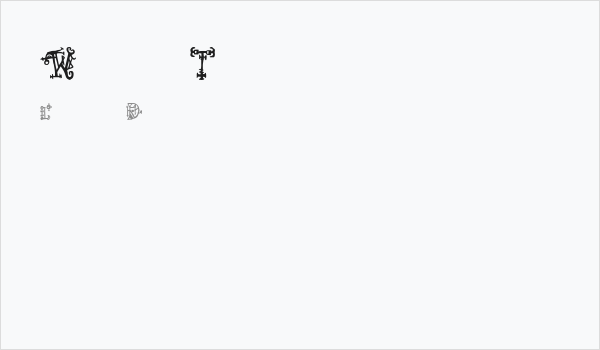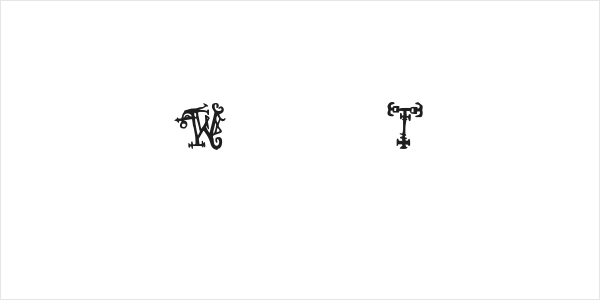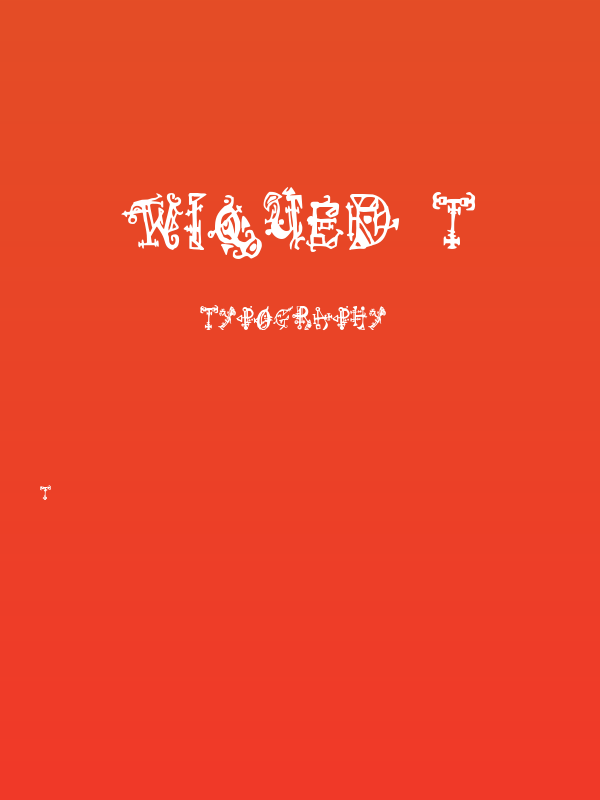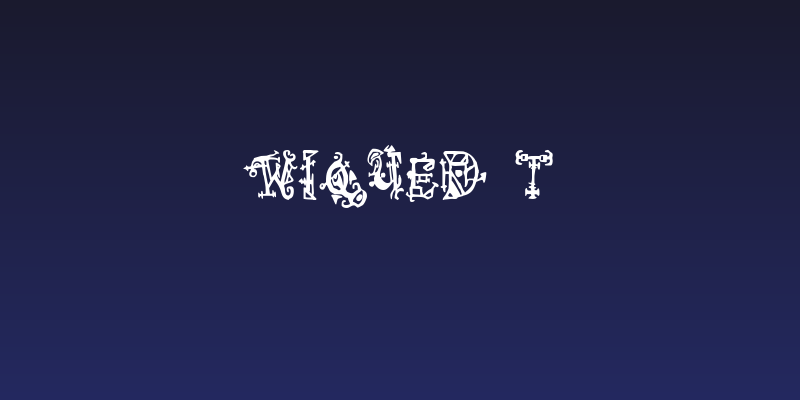
Wiqued T Font
Wiqued T Description
This font is a highly decorative and intricate typeface that combines elements of Gothic and Victorian styles. Each character is adorned with elaborate flourishes and ornamental details, creating a sense of mystery and elegance. The letters are bold and complex, with a high level of detail that makes them stand out. This font is not designed for readability in large blocks of text but rather for making a visual impact in short phrases or titles. The unique design elements give it a distinct personality, making it suitable for projects that require a touch of drama and sophistication.
Proposed ProjectsIdeal for use in fantasy-themed posters, book covers, event invitations, or branding that requires a dramatic and ornate touch.